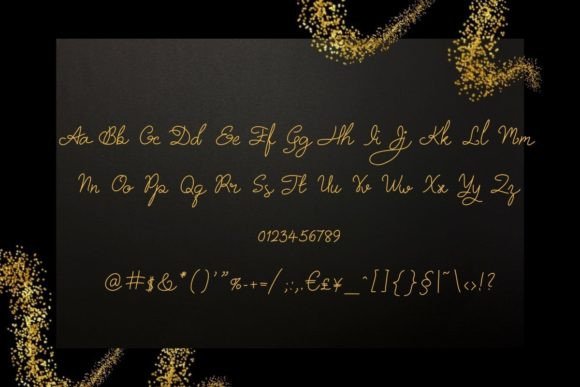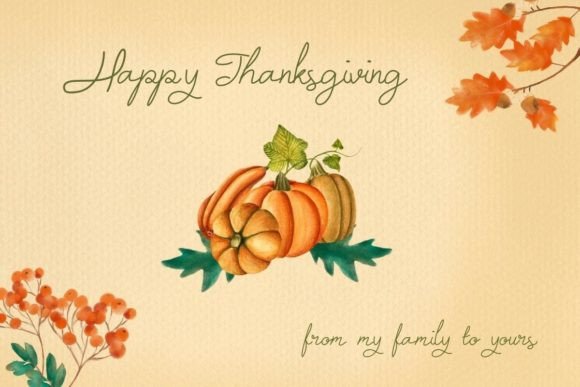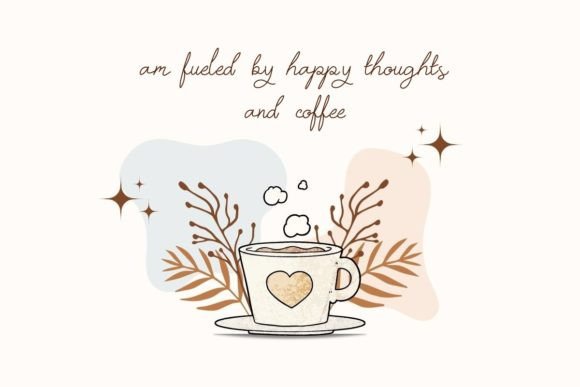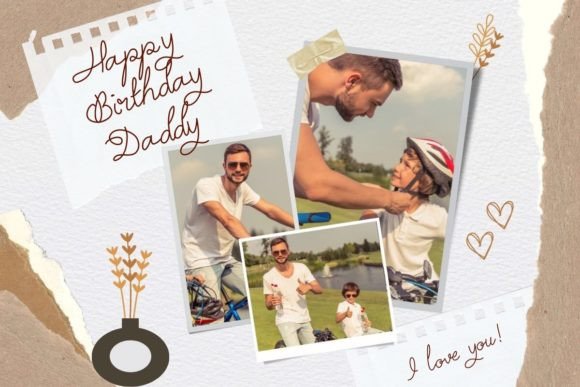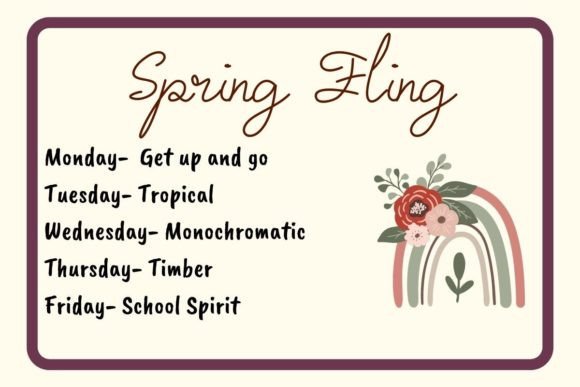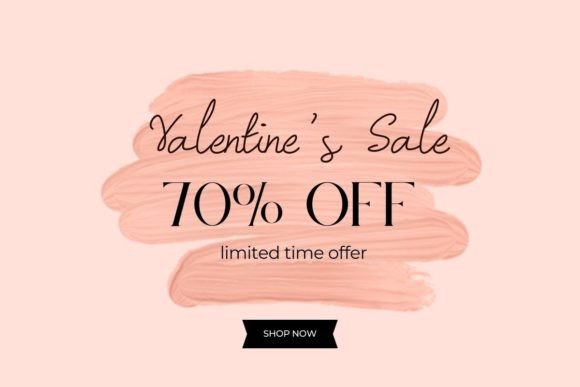
Introduction to Golden Gold Font
Golden Gold is a beautiful and light handwritten font with a unique feel and a stunning impact.
It will add a luxury spark to any design project that you wish to create .
Key Features of Golden Gold Font
Why Choose Golden Gold Font?